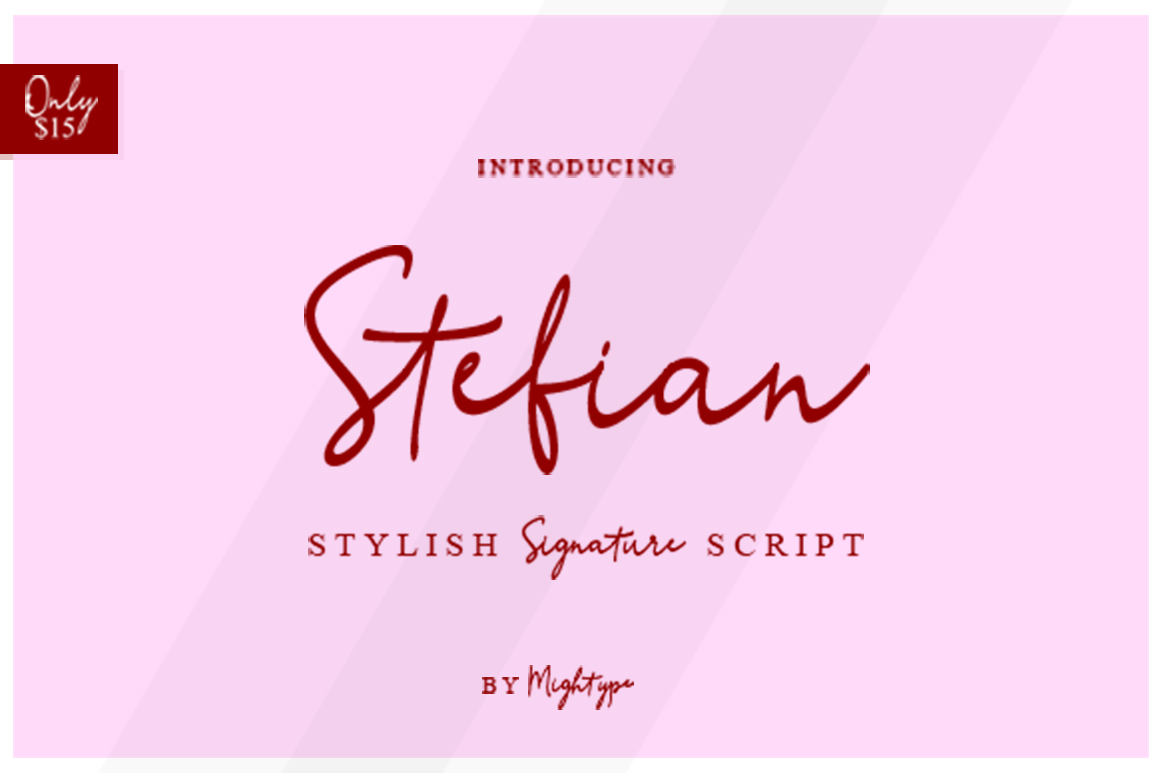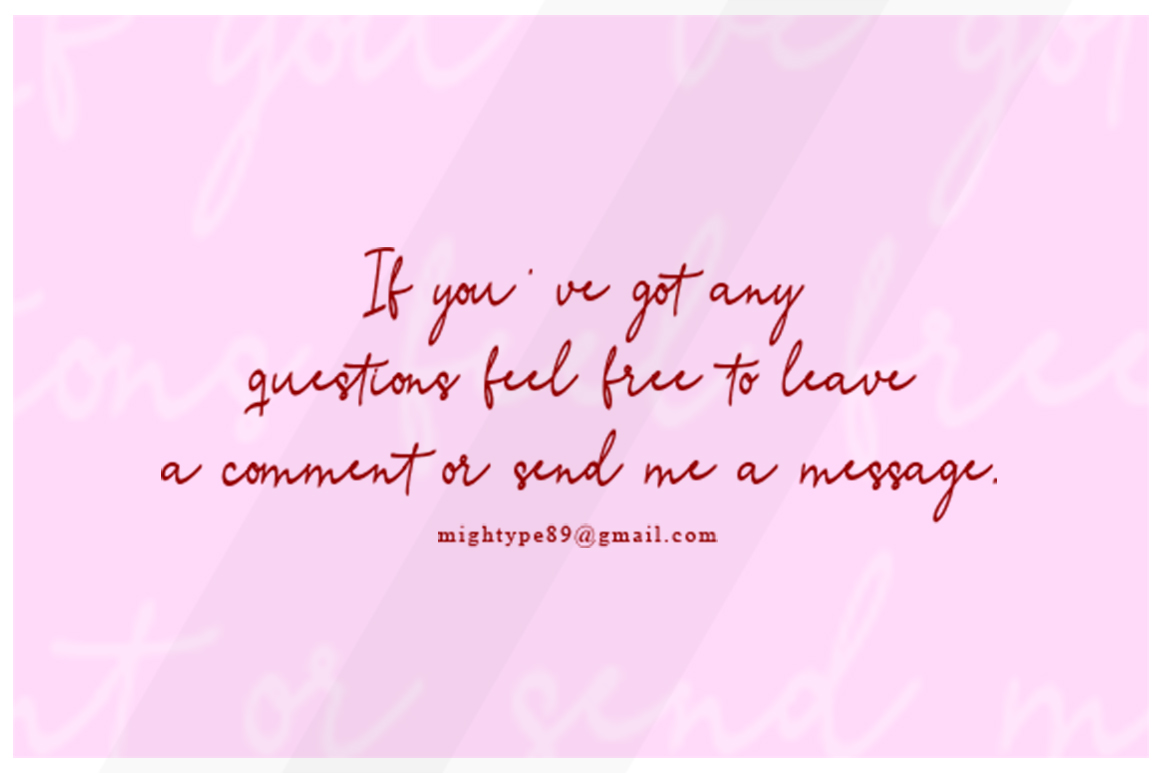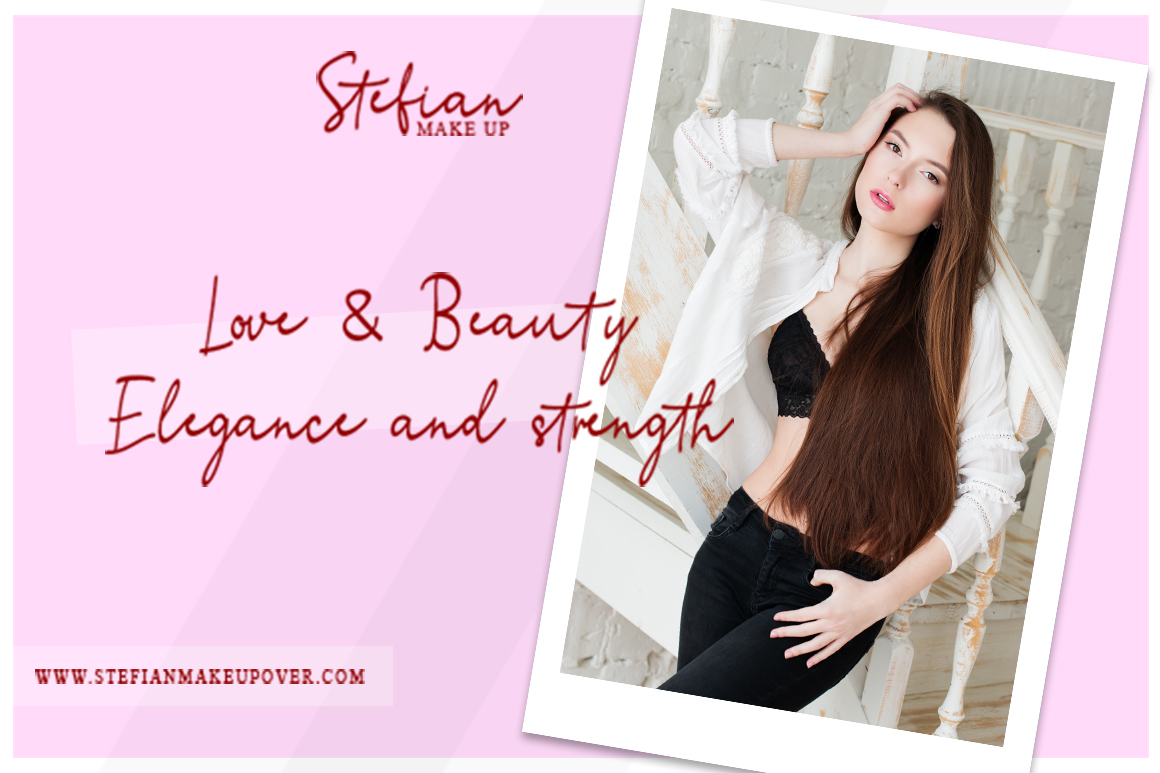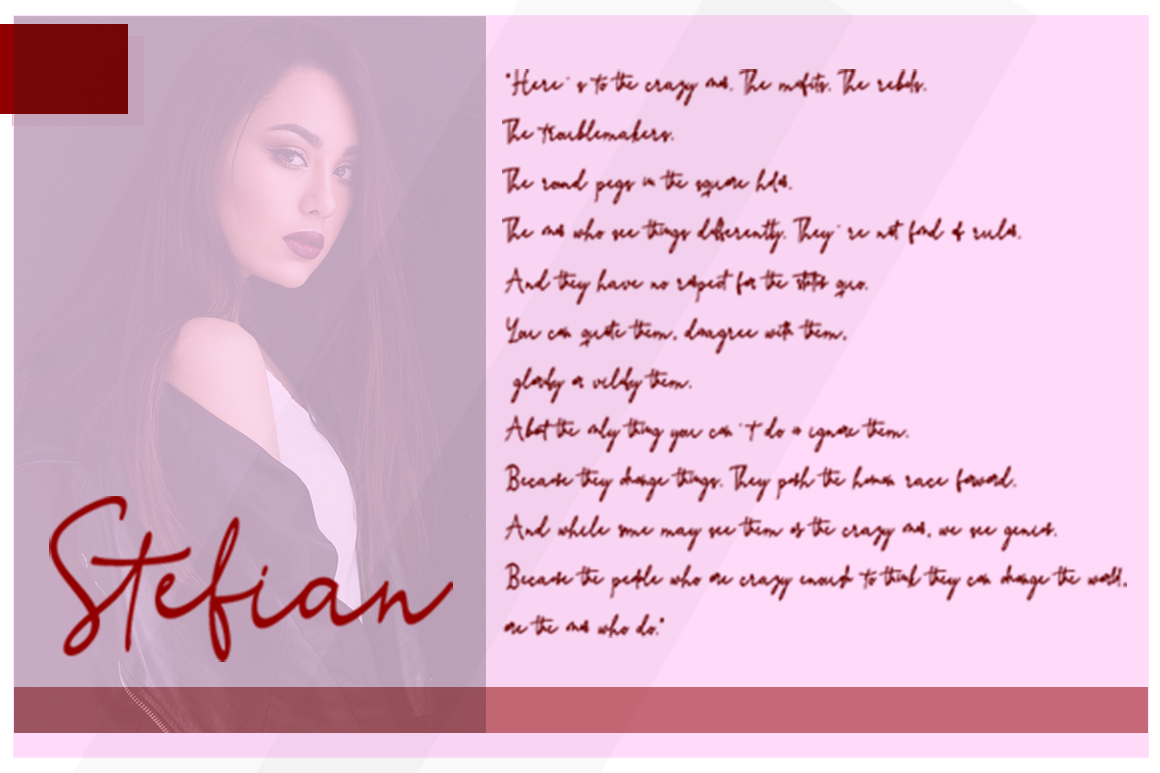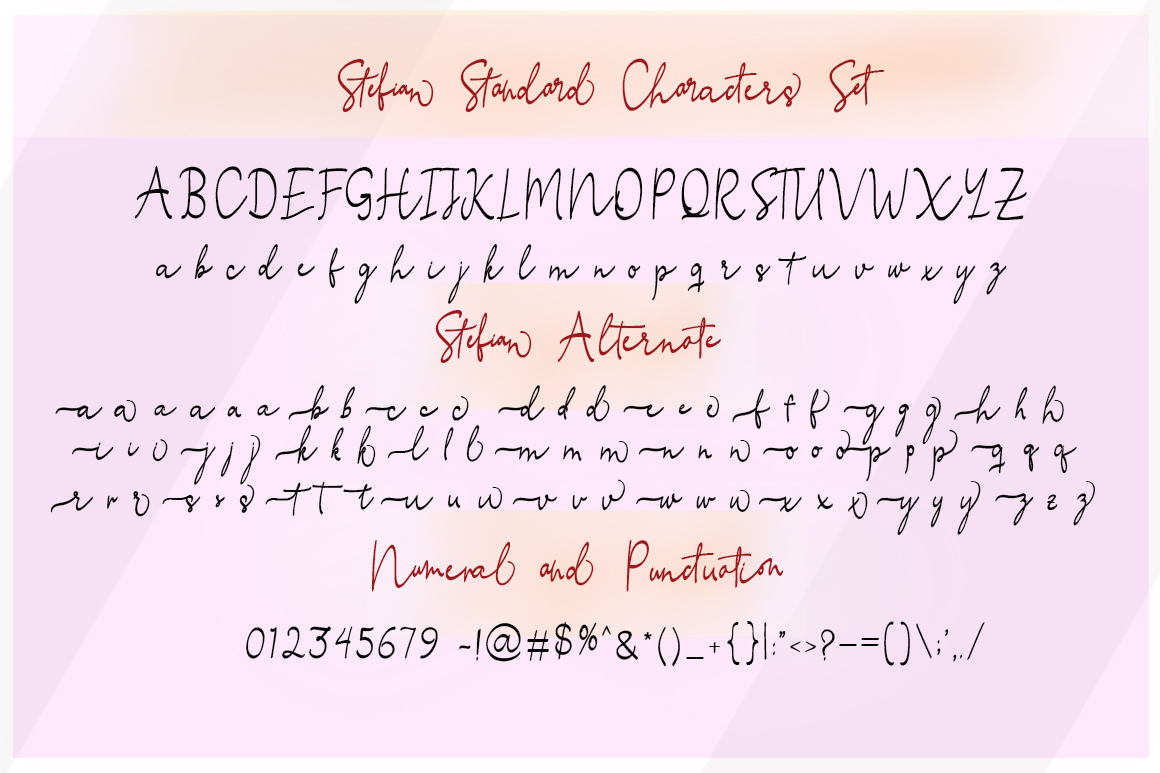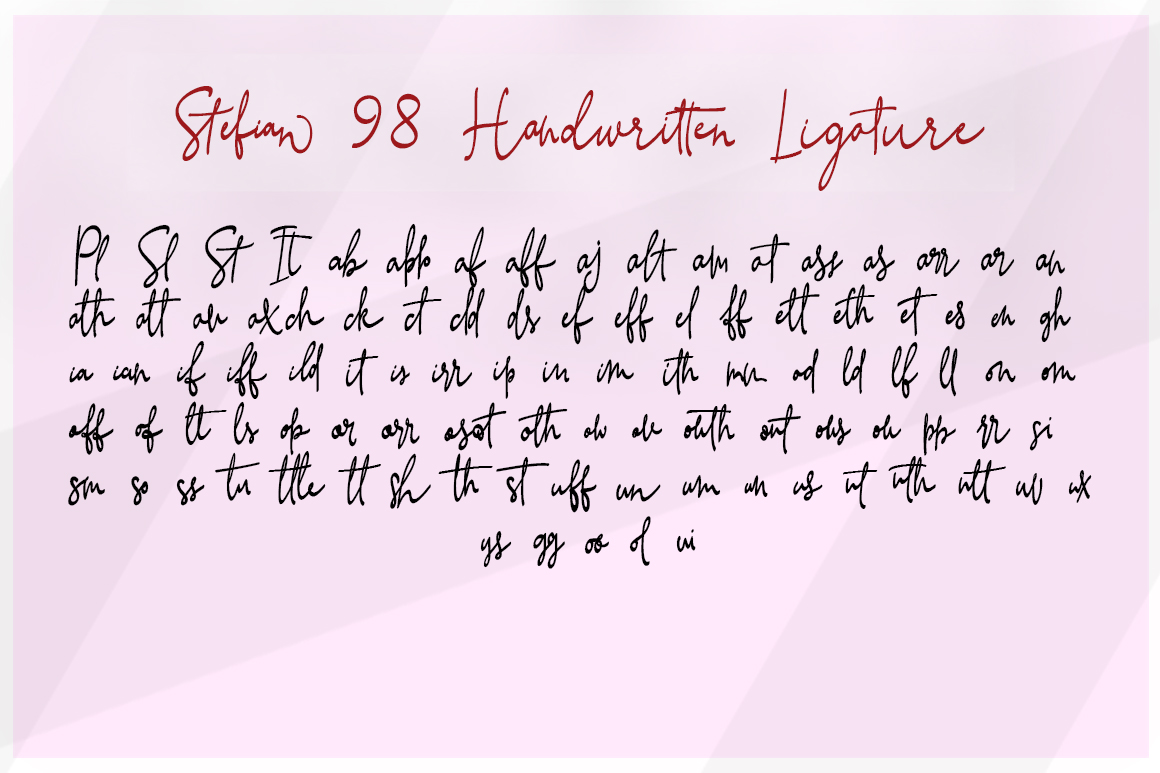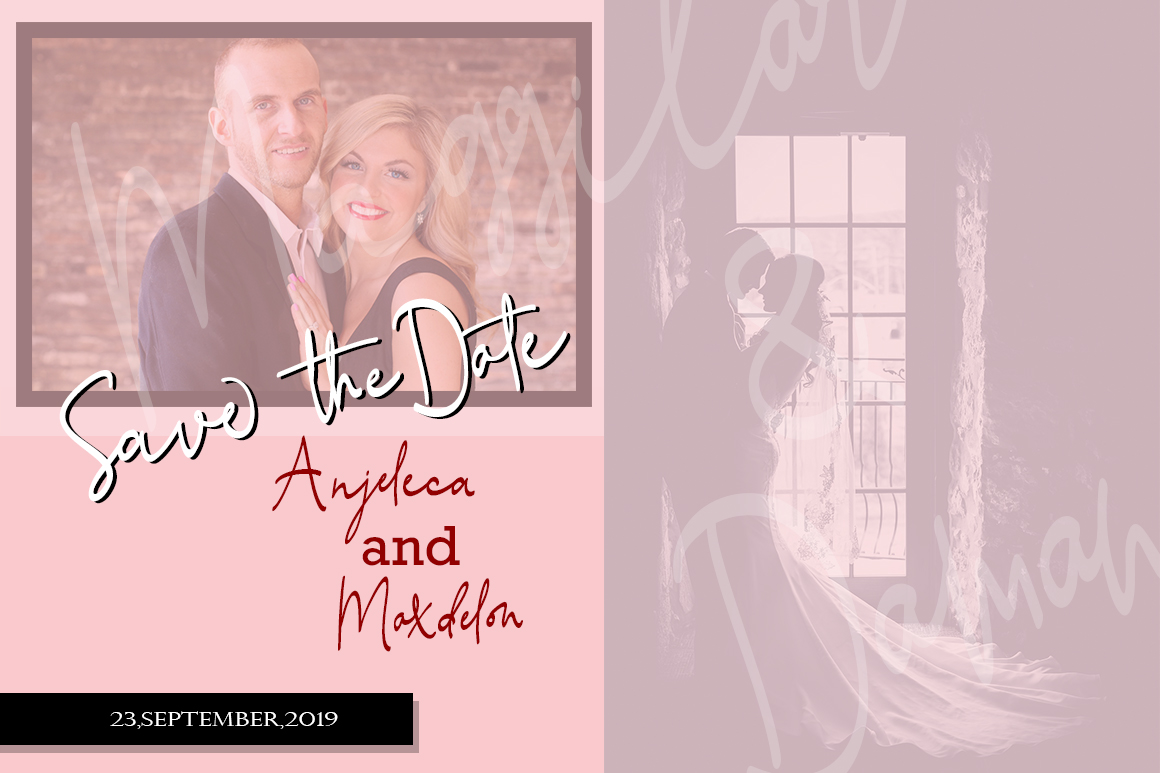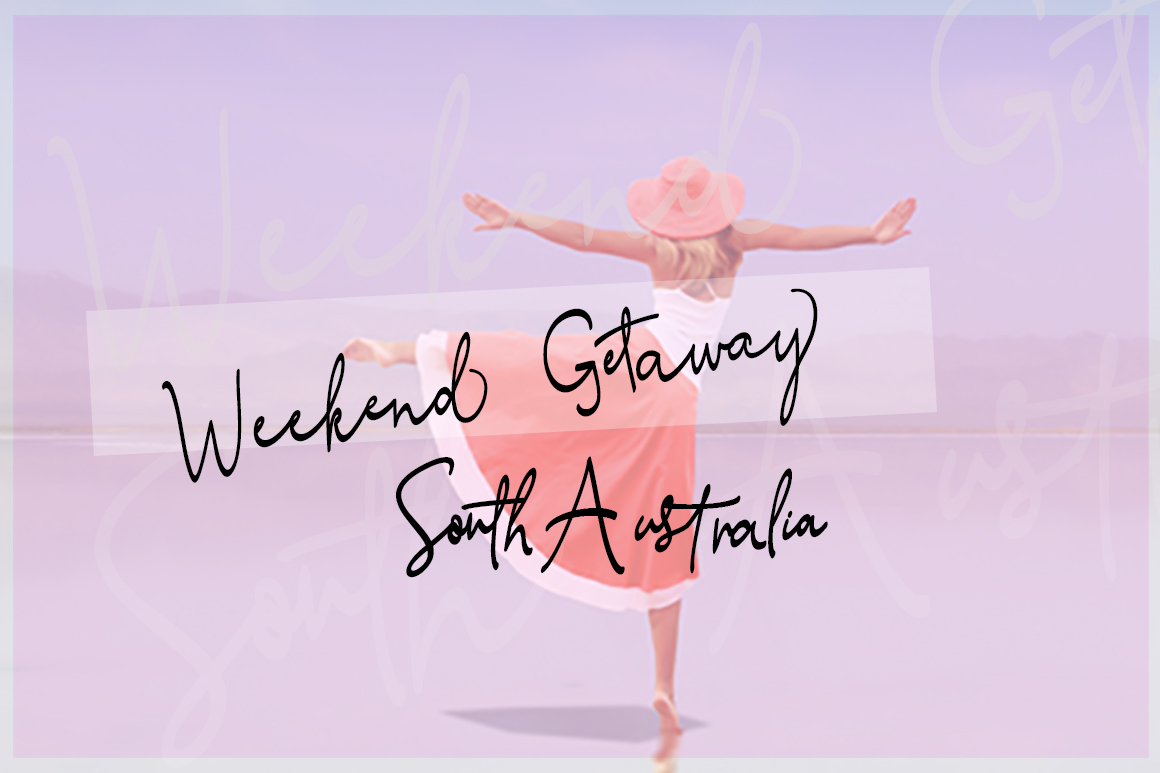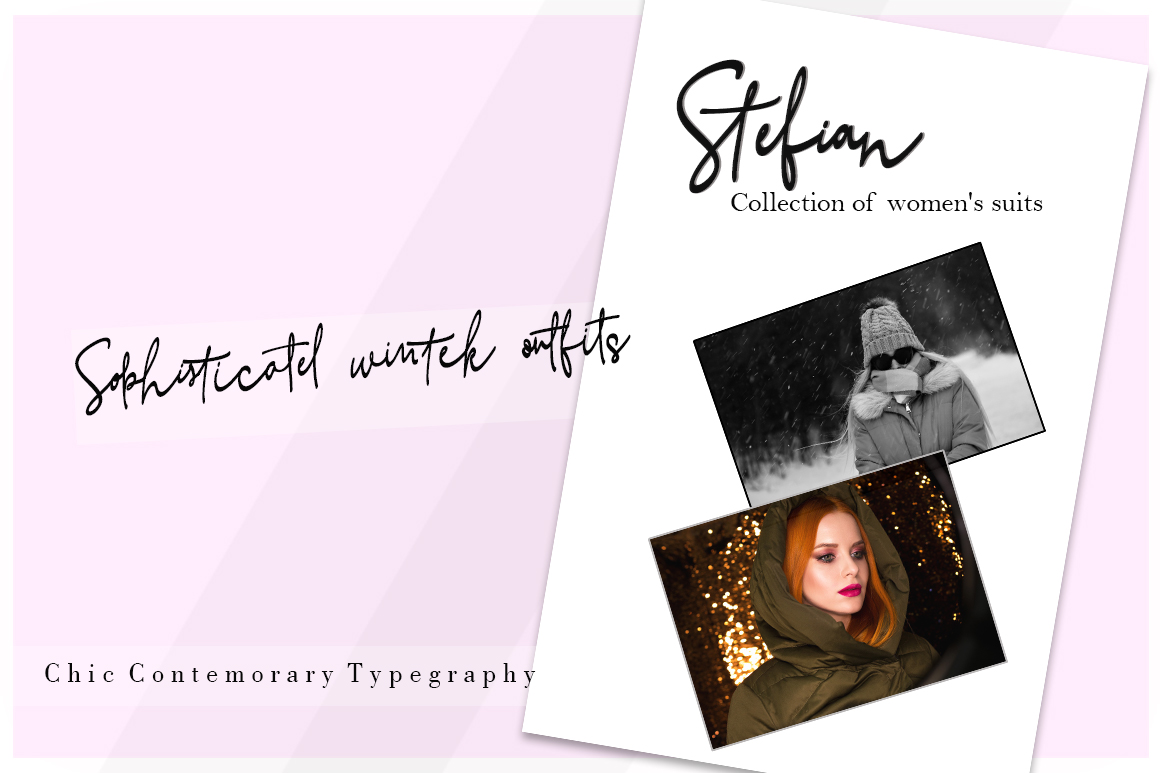
Stefian Script Font
About Stefian Script Font
The Stefan Script is a slightly bold calligraphy font.
It’s perfectly suitable for many different types of designs. It’s packed with alternate characters, allowing you to create stunning designs.